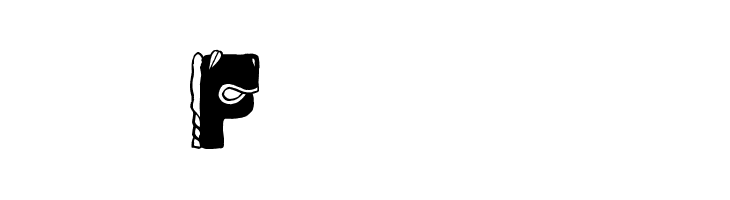
( Vladimir Nikolic - www.coroflot.com/vladimirnikolic )
A bold, 3D italic font with a filled interior and thick outlines.
( Wojtek Zolty )
A bold, geometric font with a futuristic and edgy design.
( Zoe Kierce )
A hand-drawn, artistic font with a playful yet sophisticated style.
A bold, distressed font with a ransom note style and uneven character blocks.
A decorative font featuring unique robot-themed characters for each letter.
A bold, playful font with a hand-drawn, textured appearance, ideal for children's themes.
A distressed, grungy font with fragmented, eroded letterforms.
A playful, decorative font with letters featuring unique facial elements.
Decorative frames and ribbons for embellishment.
A playful and whimsical collection of unique monster illustrations.